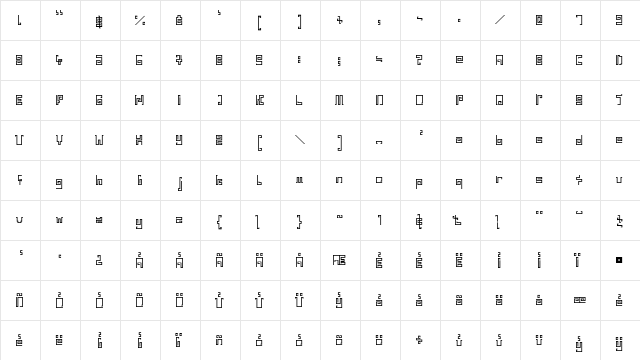
India Snake Pixel Labyrinth Game Regular
Design Context for India Snake Pixel Labyrinth Game Typeface
India Snake Pixel Labyrinth Game is rooted in pixel-grid construction, making it a natural fit for game UI, retro computing aesthetics, and digital nostalgia projects.
A natural choice for retro game titles, chiptune music branding, 8-bit UI, and digital nostalgia projects.
Pro Tip: Pair India Snake Pixel Labyrinth Game with flat colour palettes and simple geometric UI elements to reinforce its digital aesthetic.